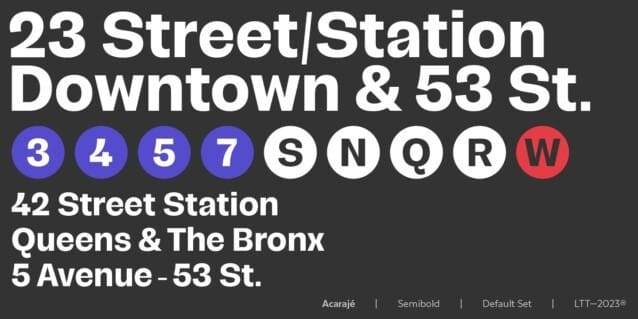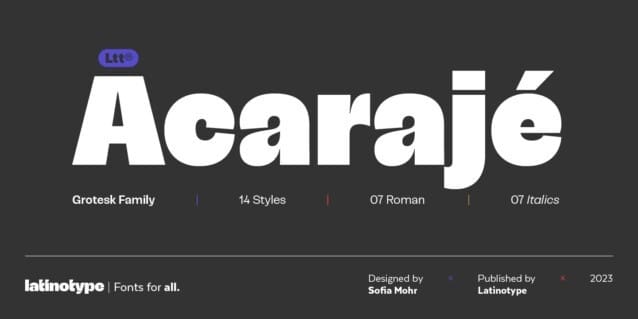
Acarajé Font
Acarajé Font is a grotesque font that stands out thanks to its versatility. Its personality blossoms through its particular modulation, which grows with weights; making it a rather jovial typeface that does not abandon the characteristics of more classic grotesques.
With two styles available: normal and italic, and a variety of 7 weights that range from “Black” to “Regular”, this font offers incredible flexibility for your designs.